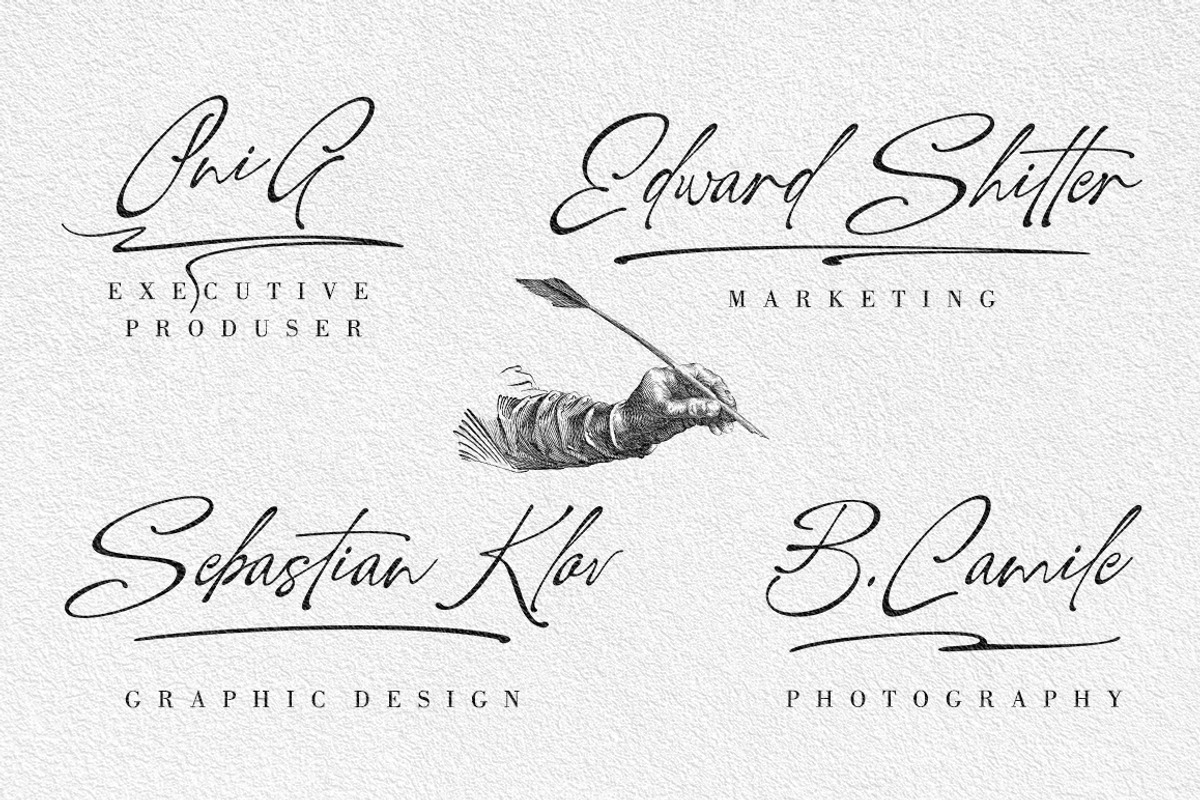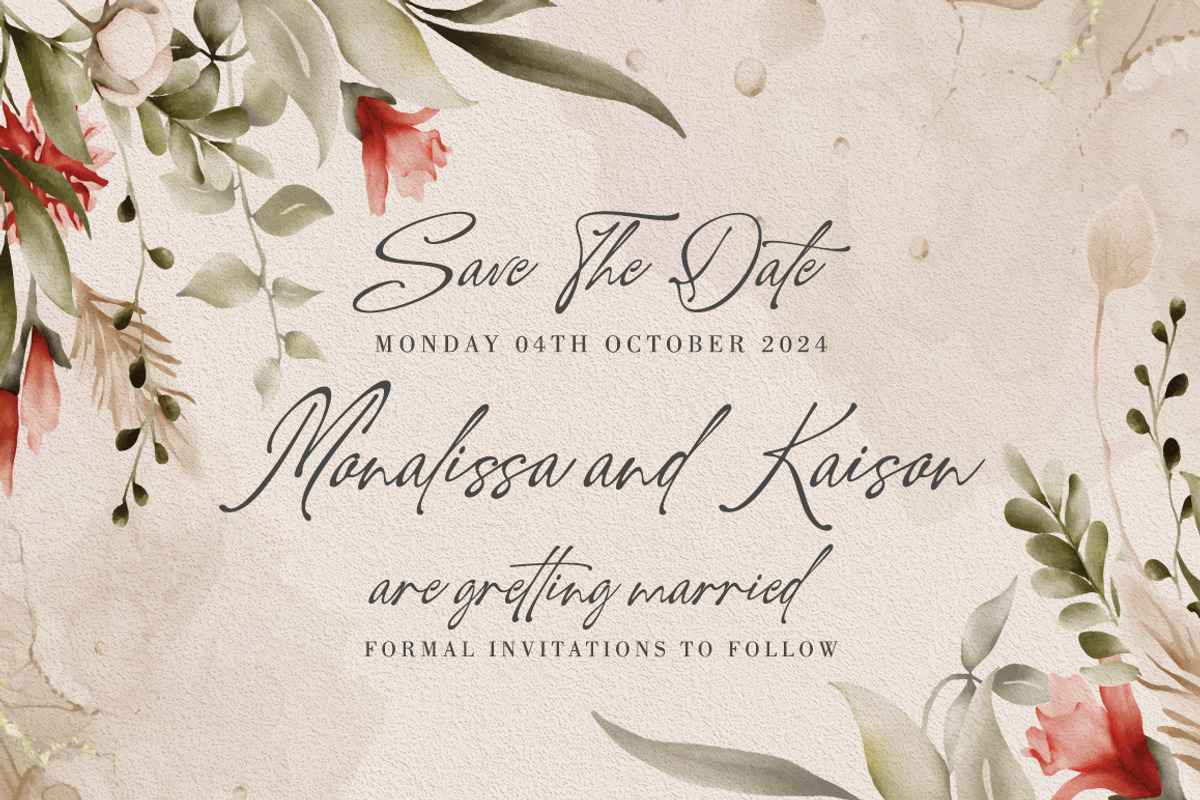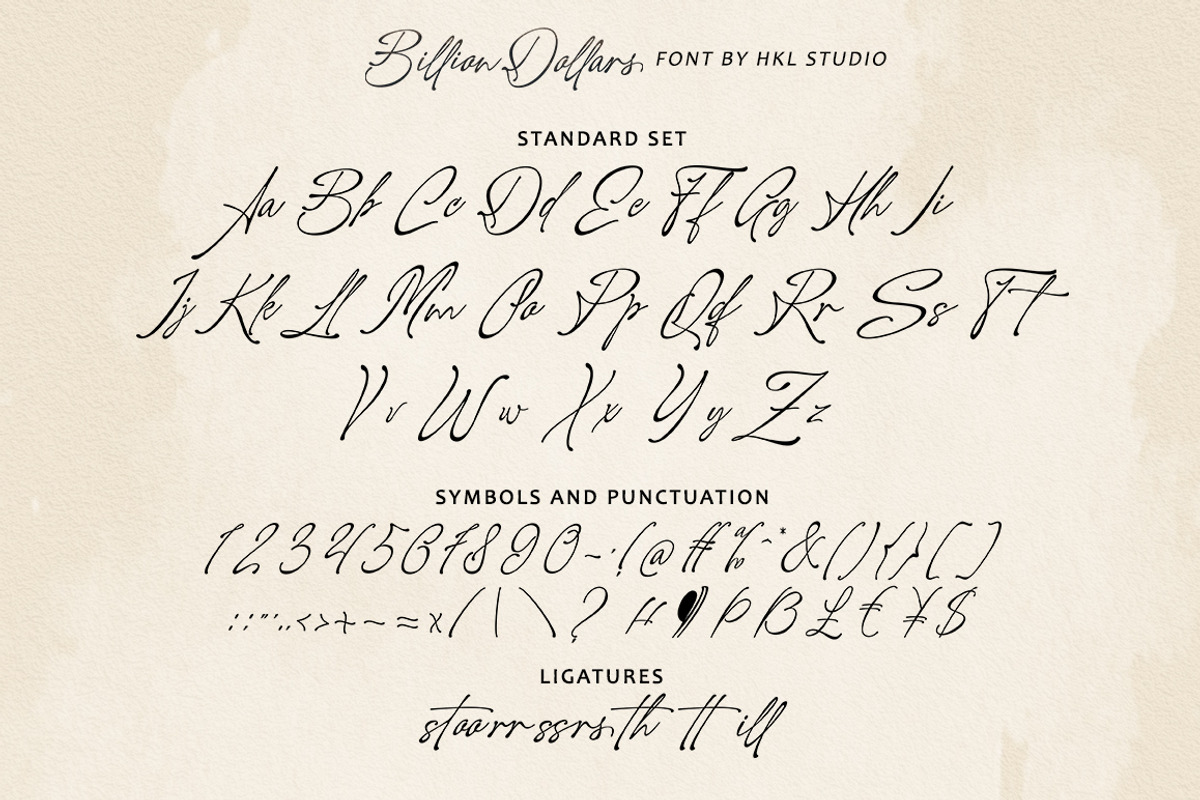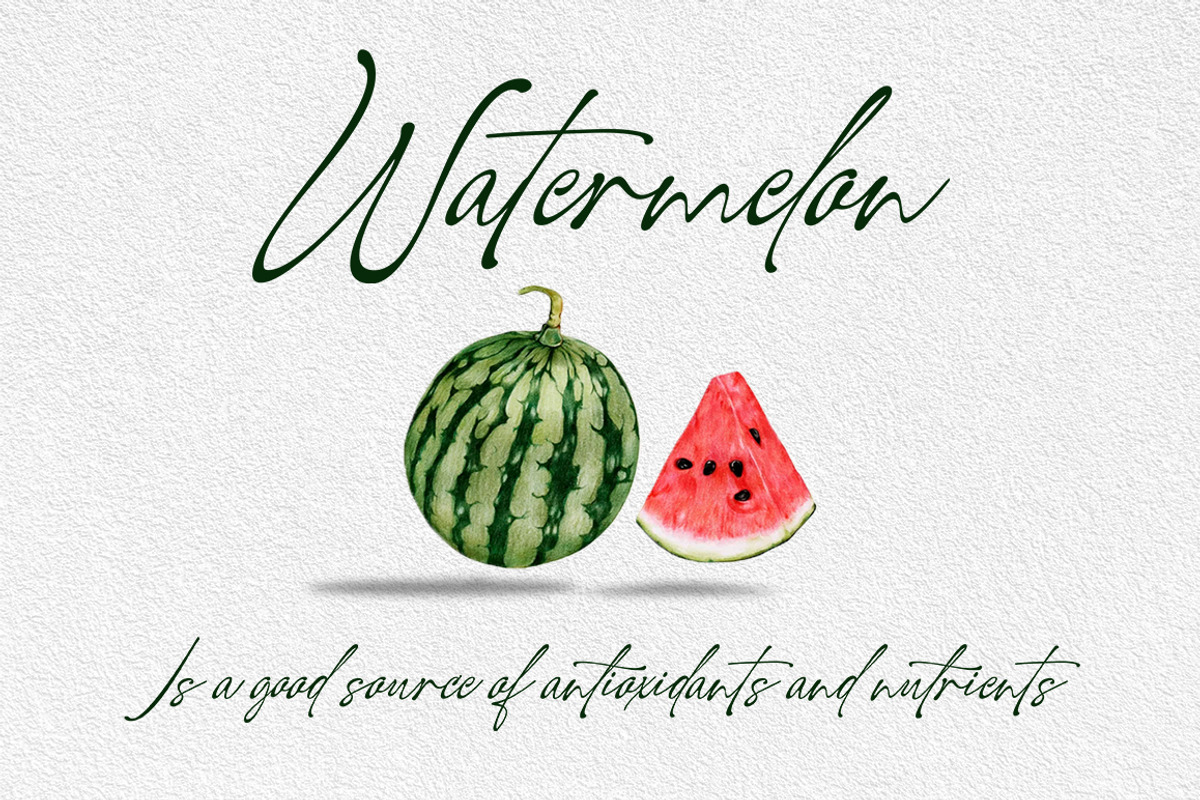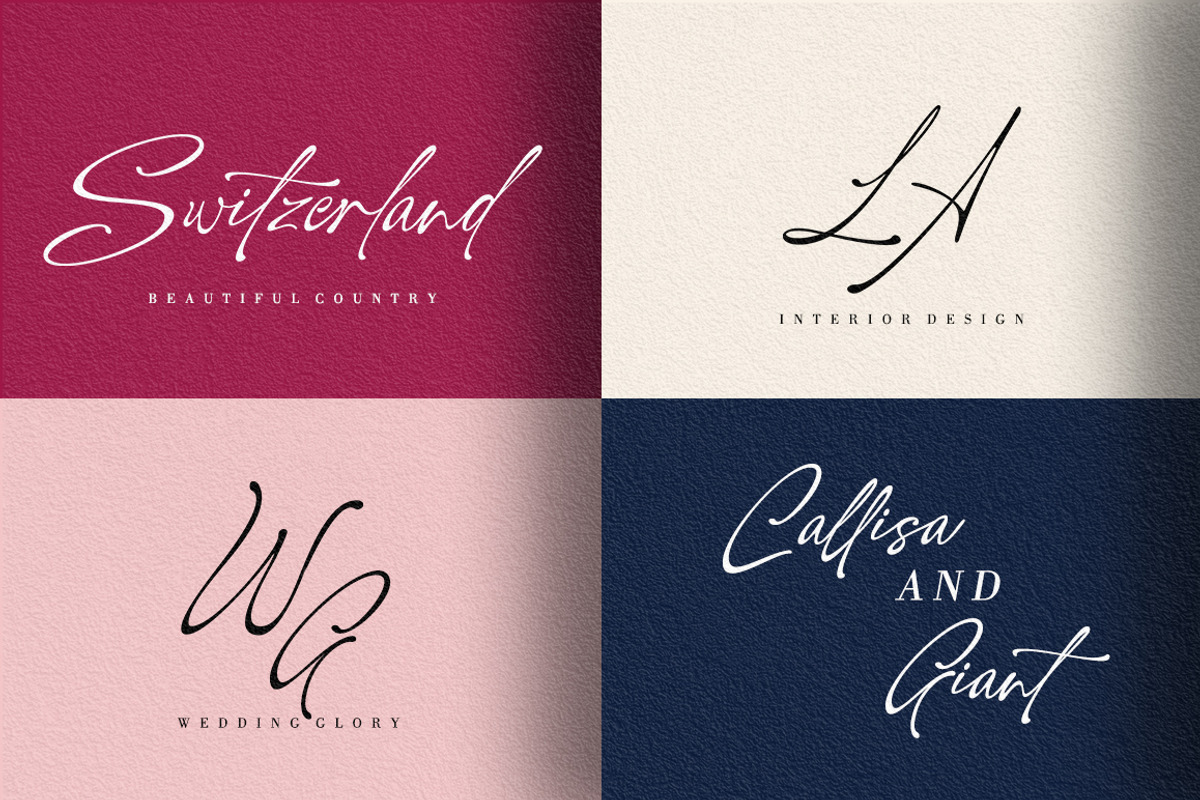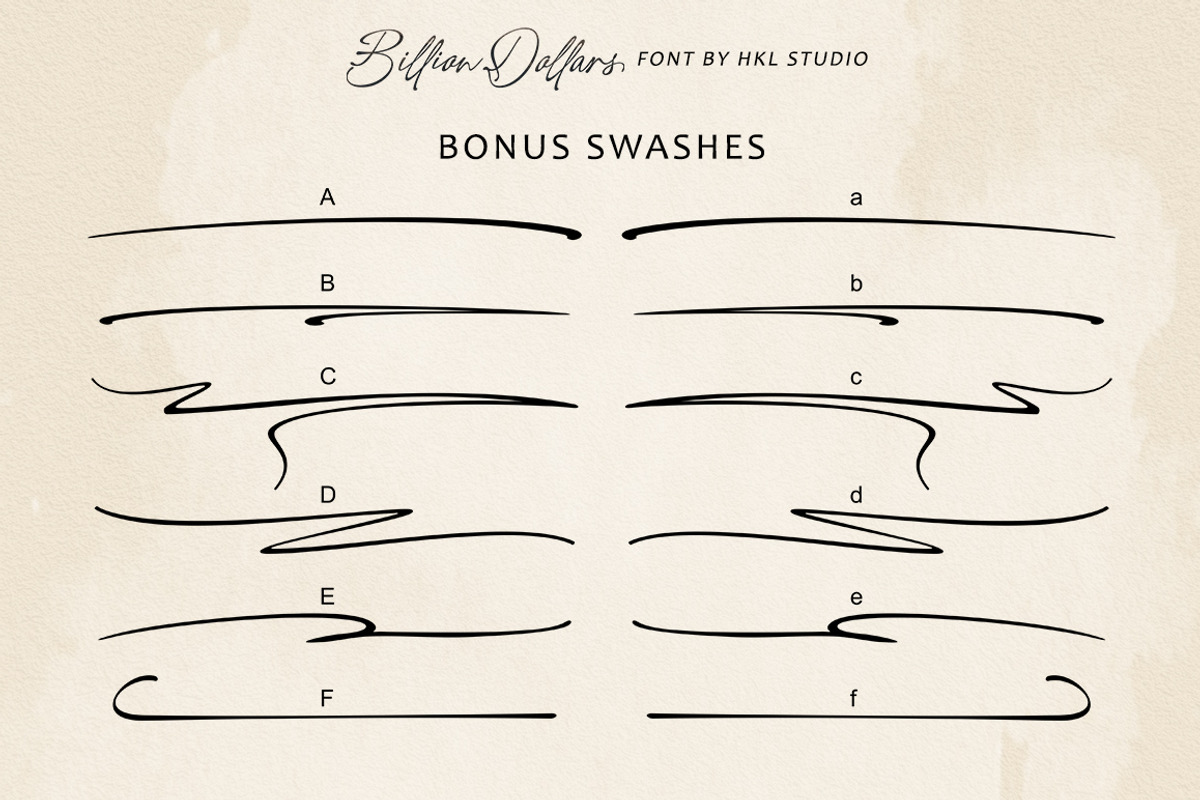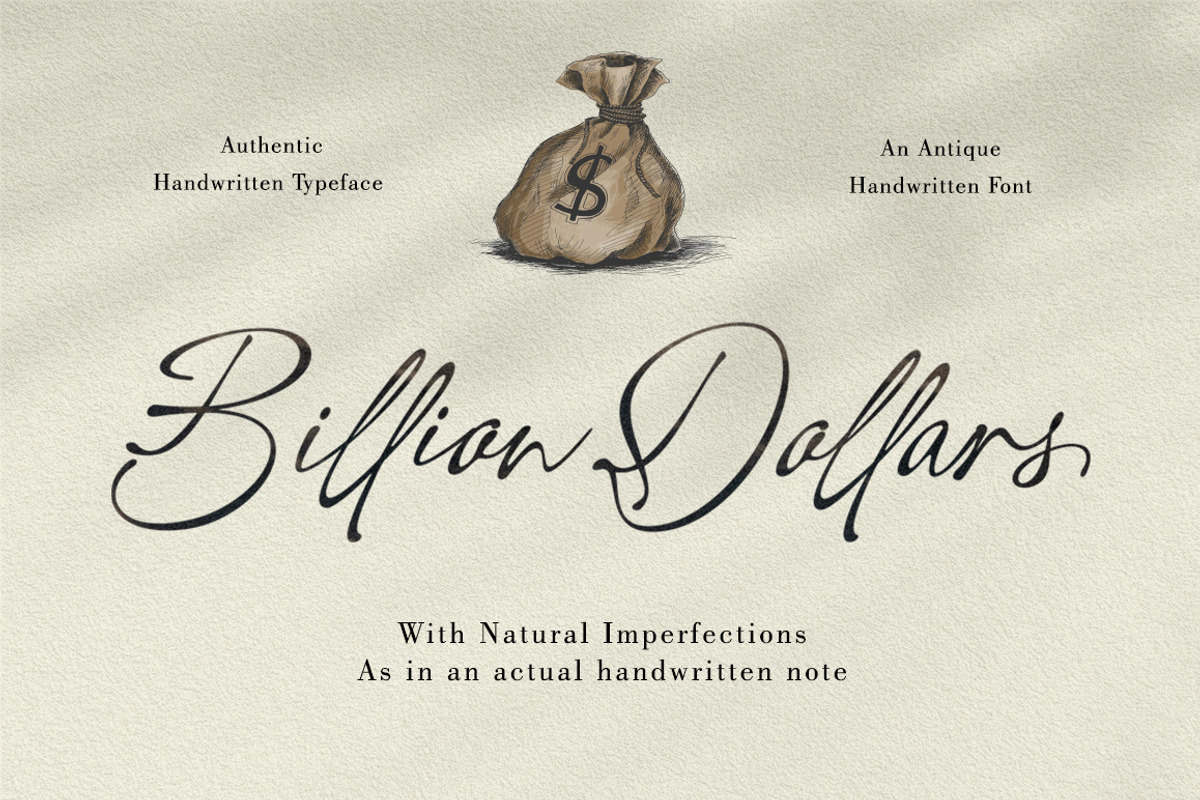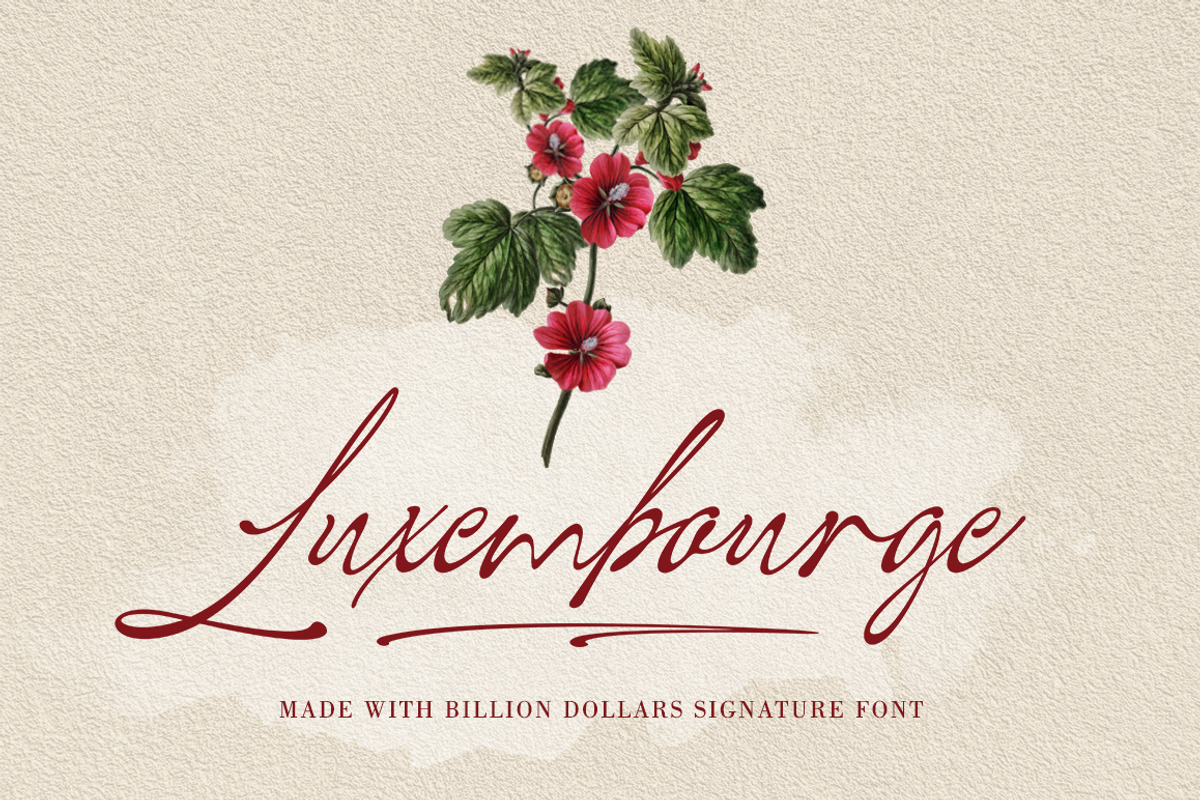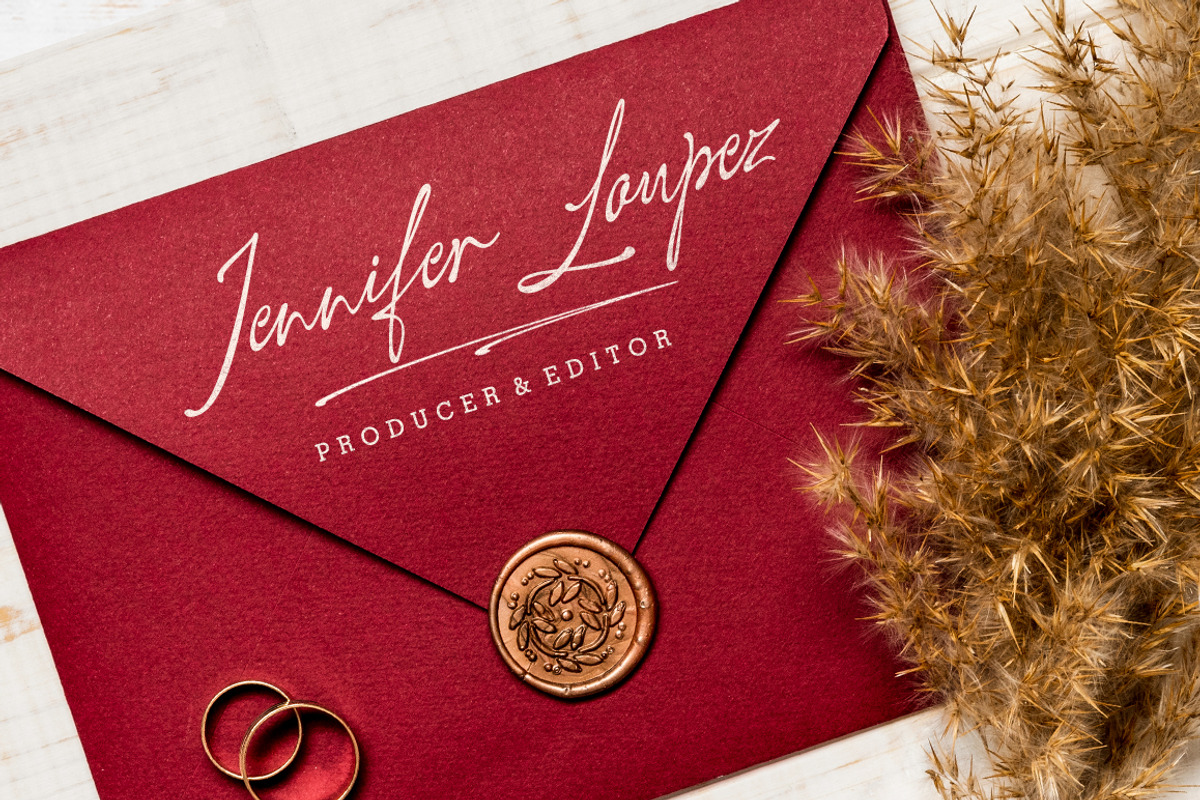
Billion Dollars
Billion Dollars Signature Font
This is a Vintage Handwriting font filled with beautiful characters. Mixed copper plate handwriting in handttering style. to show its performance. Billion Dollars appeals as a smooth, clean, feminine, sensual, glamorous, simple, and easy to read typeface.
Billion Dollars Script comes with both Clean and Aged versions, uppercase and lowercase that bind beautifully, bind, and are loved by many finishes. It has Multilingual support (West European characters) and works with the following languages: English, Danish, Dutch, Estonian, Finnish, French, German, Hungarian, Icelandic, Norwegian, Polish, Portuguese, Spanish, Swedish.
In my example I show how this script can be used. It's perfect for logos, wedding invitations, alcohol labels, romantic cards and more.
Billion Dollars (OTF and TTF) Swashs Billion Dollars (OTF and TTF) Uppercase & Lowercase Script, as well as a touch of Ligature make this font look elegant. Recommended for use in Adobe Illustrator or Photoshop. Custom features don't work in Microsoft Word.